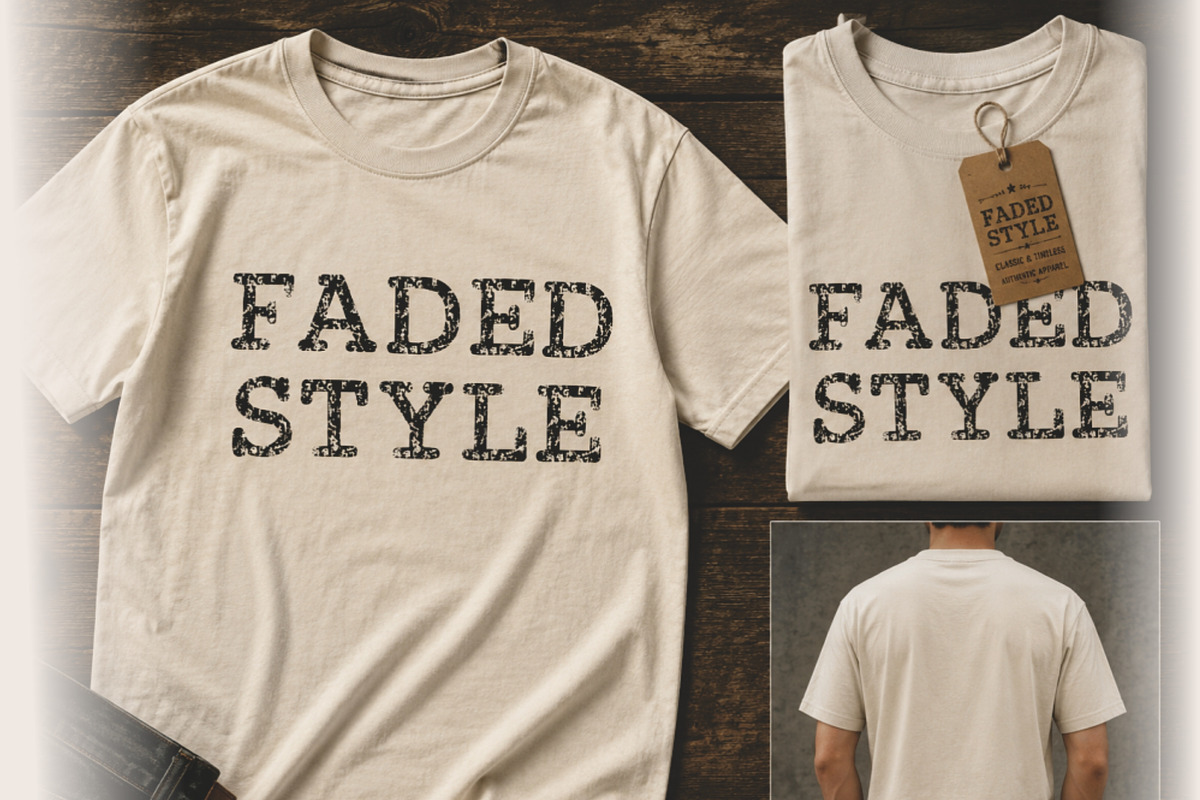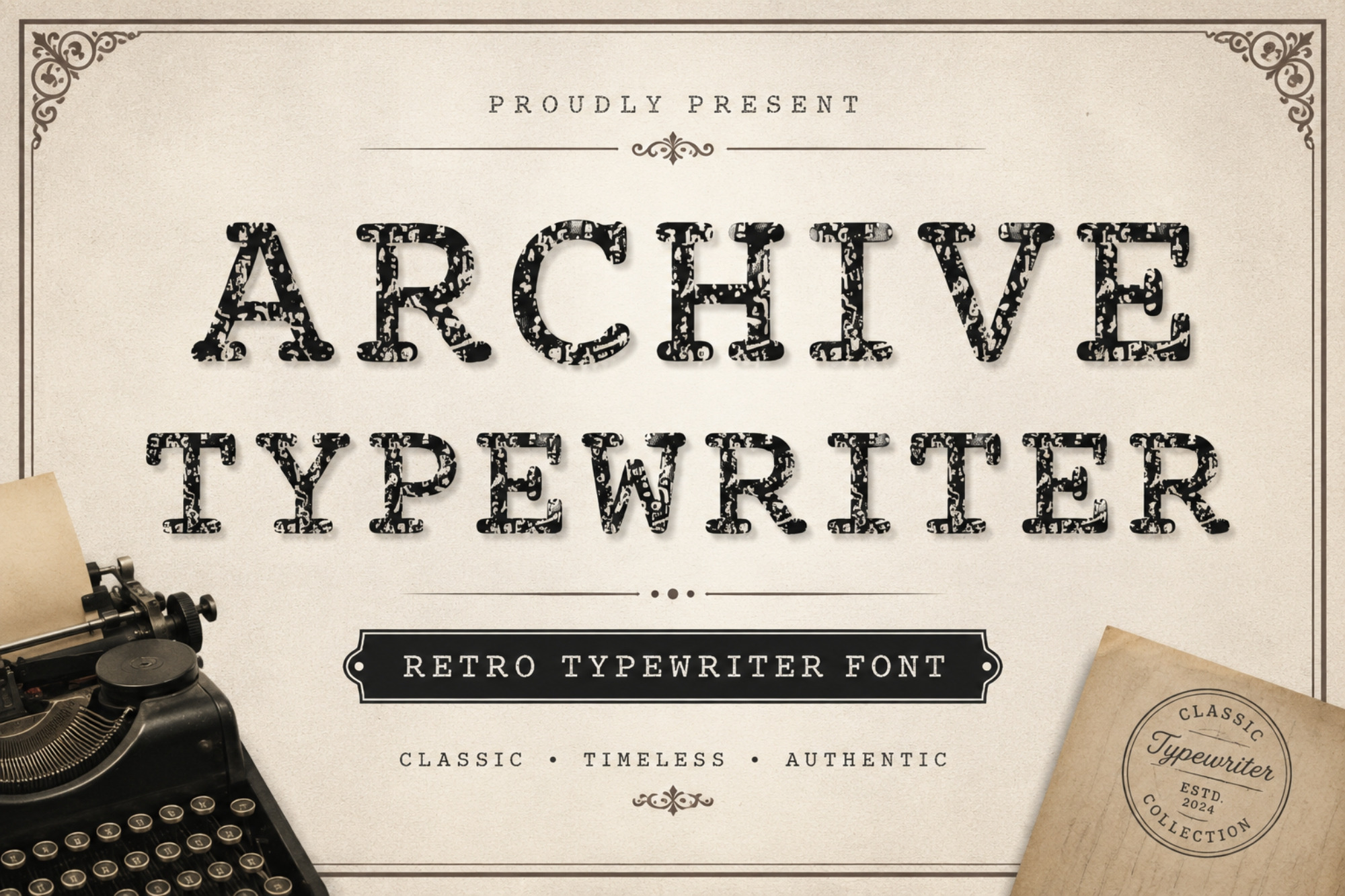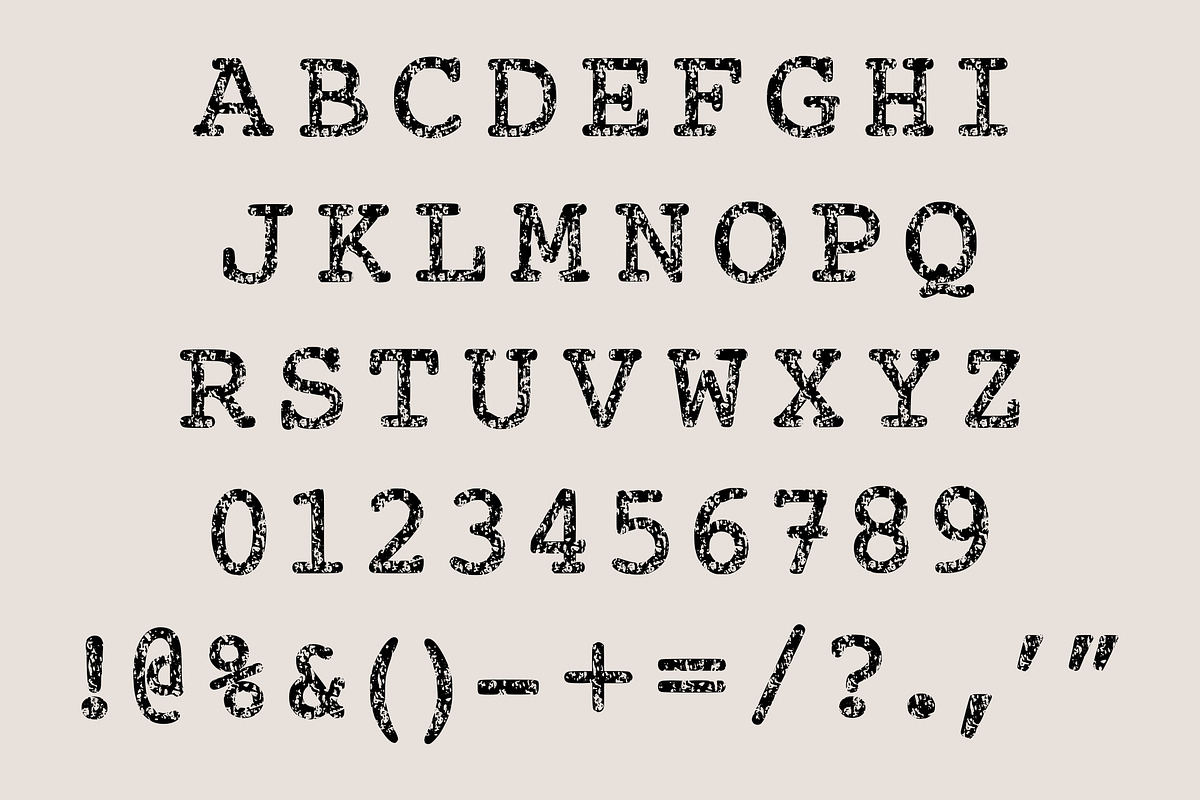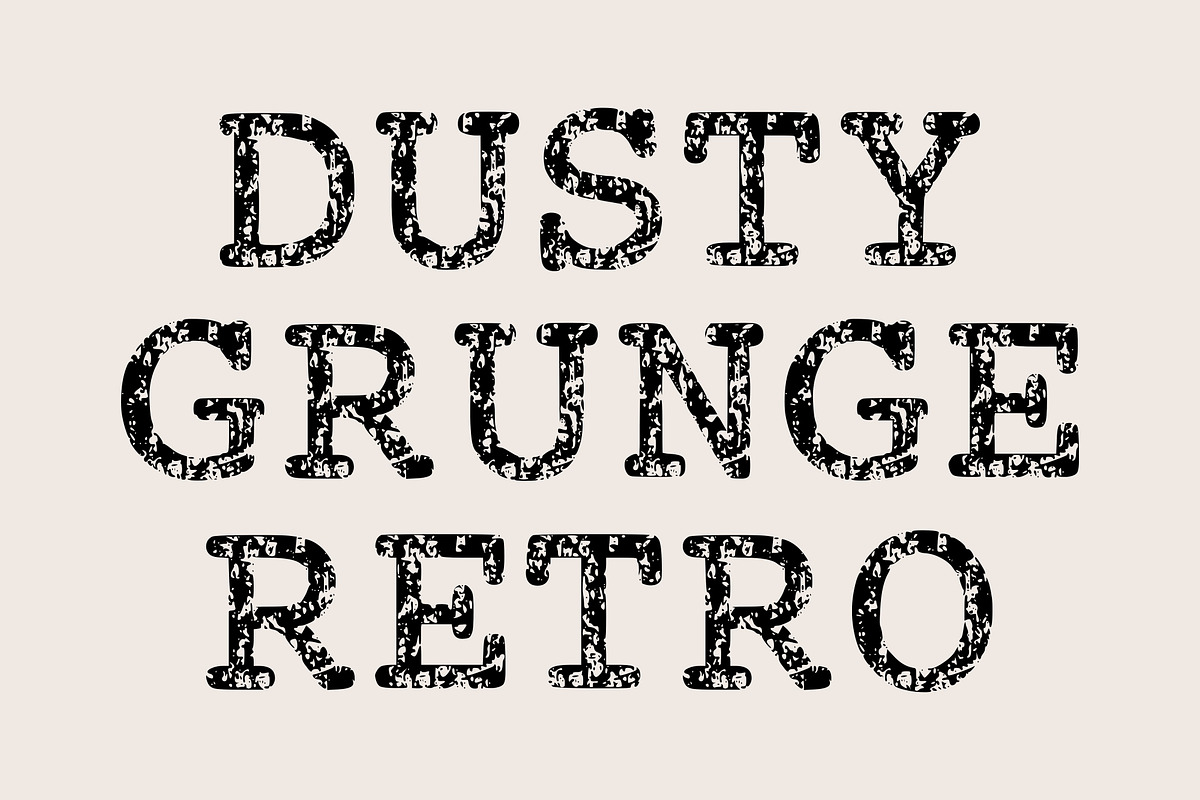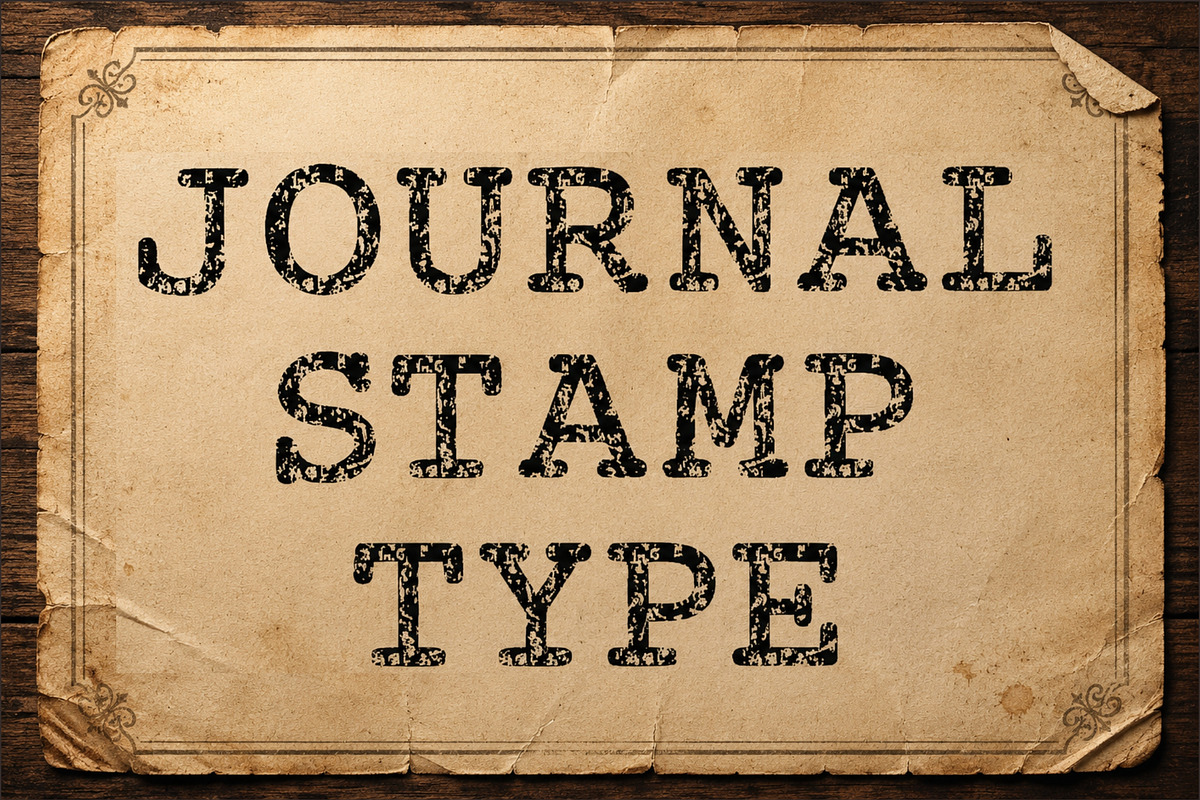
Archive Typewriter – Vintage Font
Archive Typewriter is a vintage-inspired typewriter font featuring bold serif letterforms and an authentic distressed texture. Its imperfect ink effect creates the nostalgic appearance of letters produced by an old mechanical typewriter.
Perfect for designs that need a classic, timeless, rustic, and authentic character. Ideal for branding, posters, packaging, editorial designs, apparel, logos, labels, invitations, and vintage-themed projects.
Vintage typewriter style
Bold serif letterforms
Distressed / worn ink texture
Authentic retro appearance
Classic and timeless aesthetic
Uppercase characters
Best For
Vintage logos & branding
Retro posters
T-shirt designs
Packaging & labels
Café & restaurant branding
Editorial layouts
Book covers
Wedding invitations
Badges & emblems
Signs & advertisements
Nostalgic typography designs